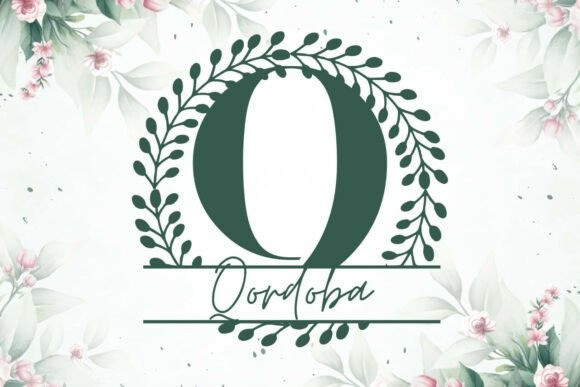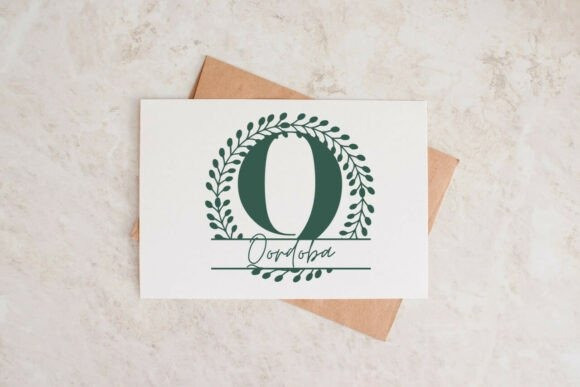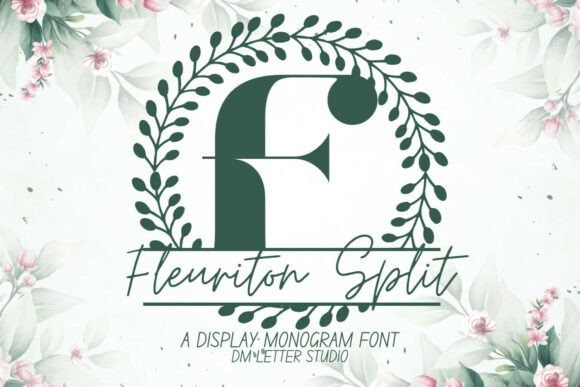
Fleuriton Split Monogram Font
Fleuriton Split Monogram Font turns any initial into a romantic, name-ready emblem in seconds. Elegant letterforms carry subtle botanical cues, while a precise horizontal split creates space for names, dates, or short words. Because spacing stays even and counters remain open, designs look polished on tiny tags, door hangers, tumblers, ornaments, menus, and wall art. Pair it with a simple sans or a light script, and every layout stays readable and premium.
Where this split monogram font shines
Set a single hero initial, then place the family name inside the split for instant personalization. Next, try couple names for keepsakes, venue names for signage, or short words like Home, Welcome, or Love for seasonal décor. Since proportions favor clarity, files scale smoothly for Cricut, Silhouette, Glowforge, and laser projects. As a result, batch customization becomes fast and consistent across products.
Fast setup, premium results
Design tips for Fleuriton Split Monogram
Keep the hero initial large and let white space breathe. Place the split at center or slightly low for a calm baseline. Choose a clean secondary font for the name inside the split to protect legibility on small items. Because the style is airy and botanical, metallic foils, textured stocks, and natural woods add instant value. However, keep names concise so the composition stays balanced and clear at thumbnail size.